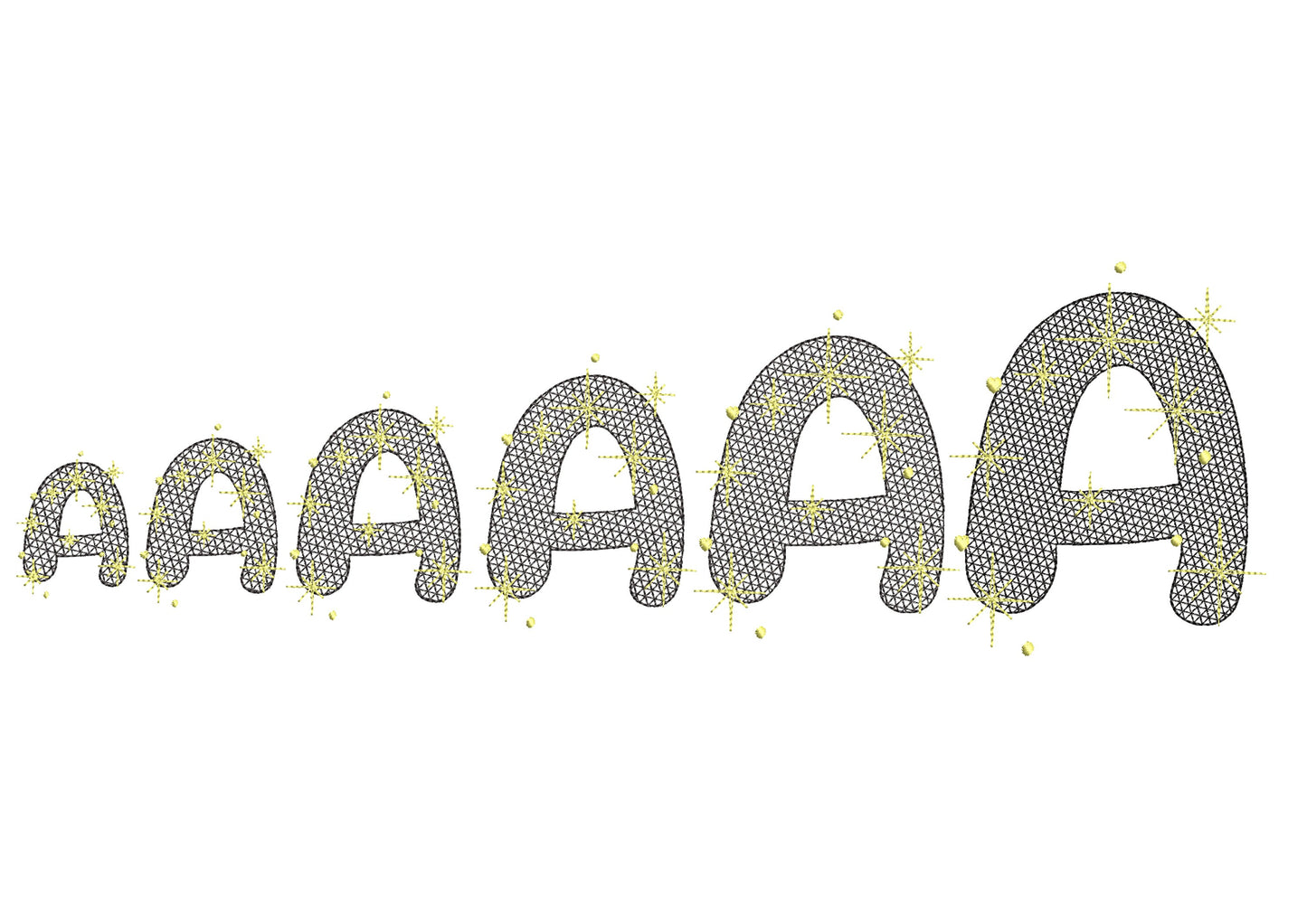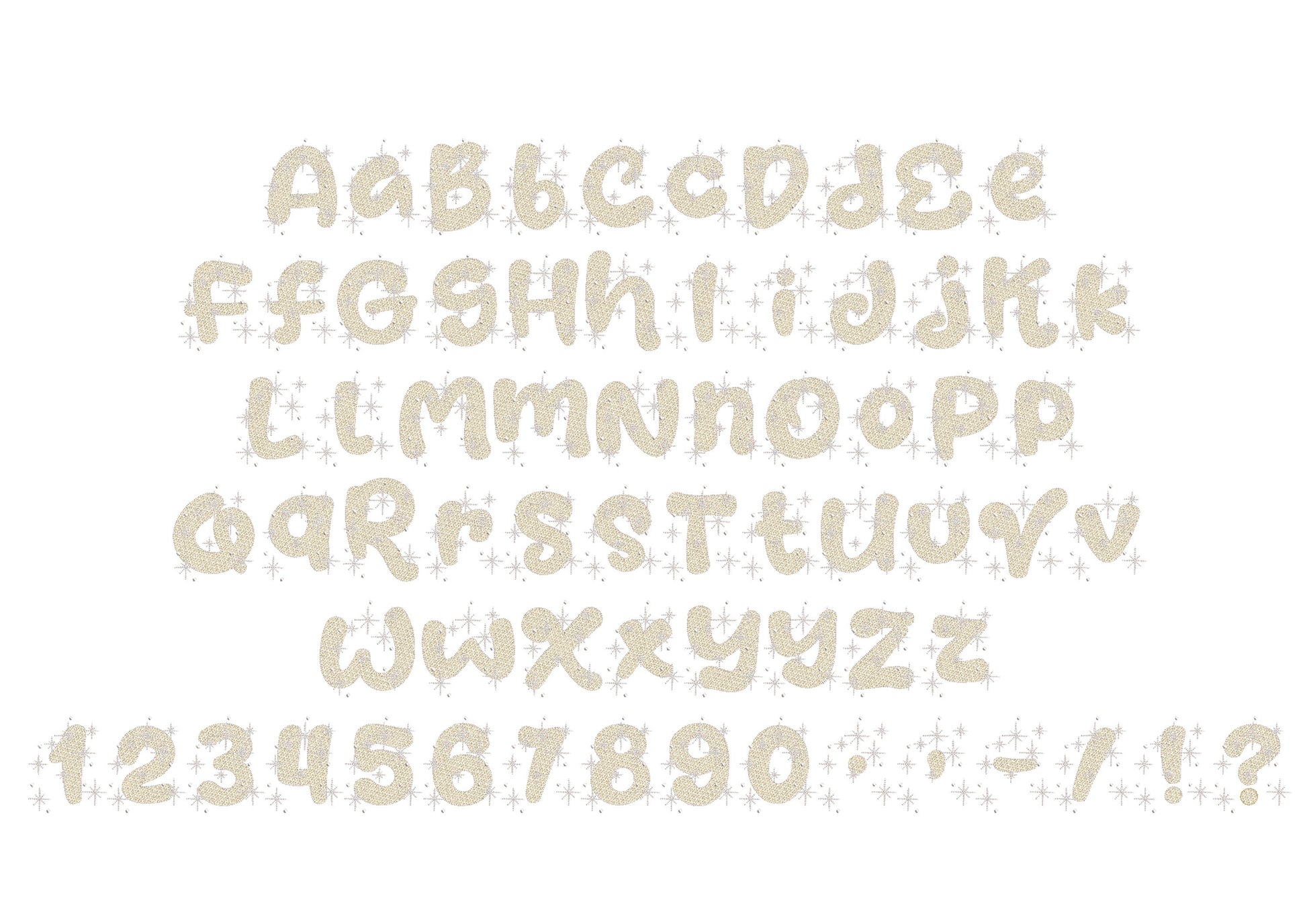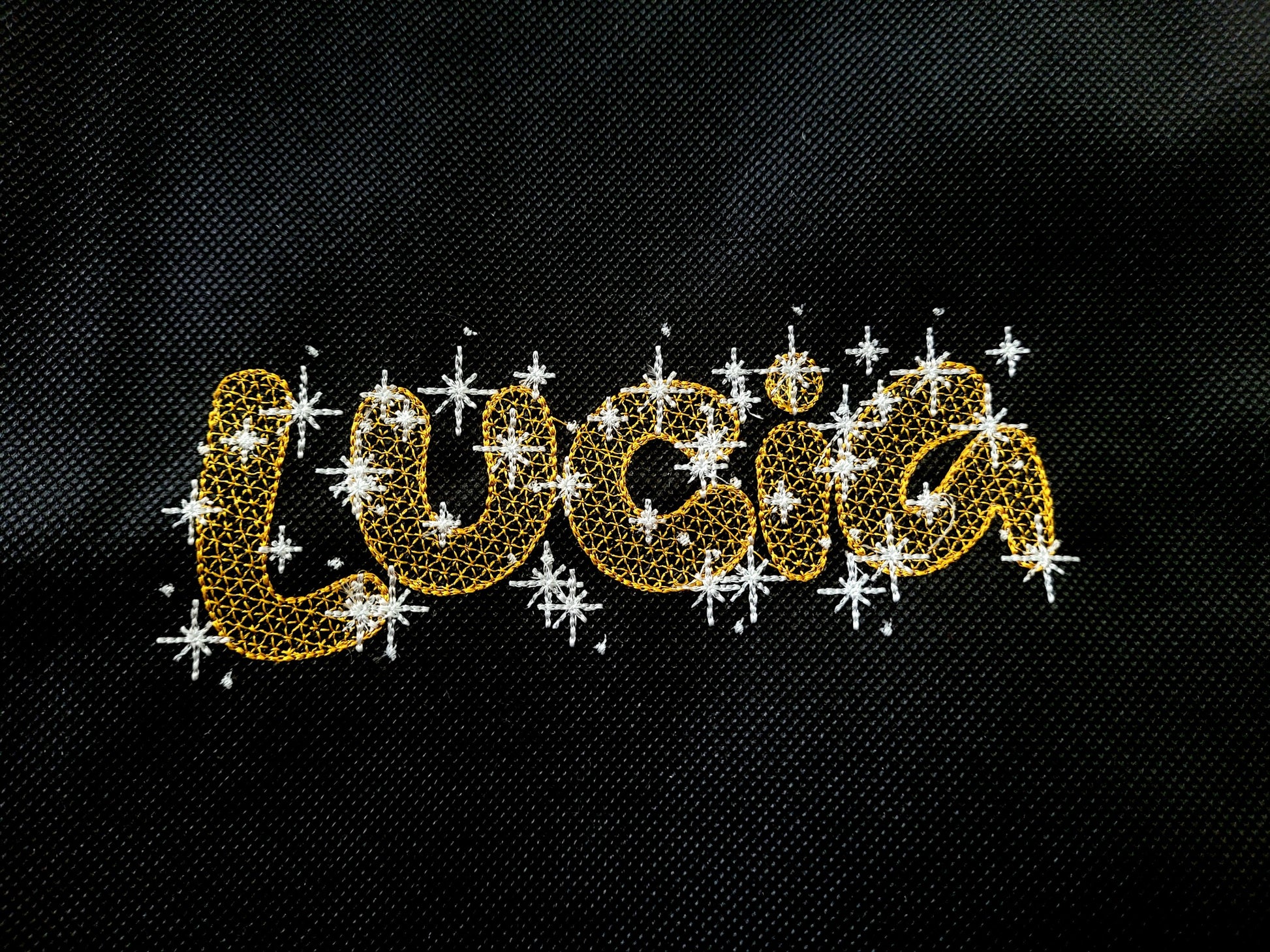
Or click to open the linkA sparkling starry night font that looks like lace, for girls' and princess names on shirts, pillows and bags.
Light, lacy stitching lets the fabric show through between the stars. Uppercase and lowercase letters, numbers and punctuation in six sizes: 2, 2.5, 3, 3.5, 4 and 5 inches.